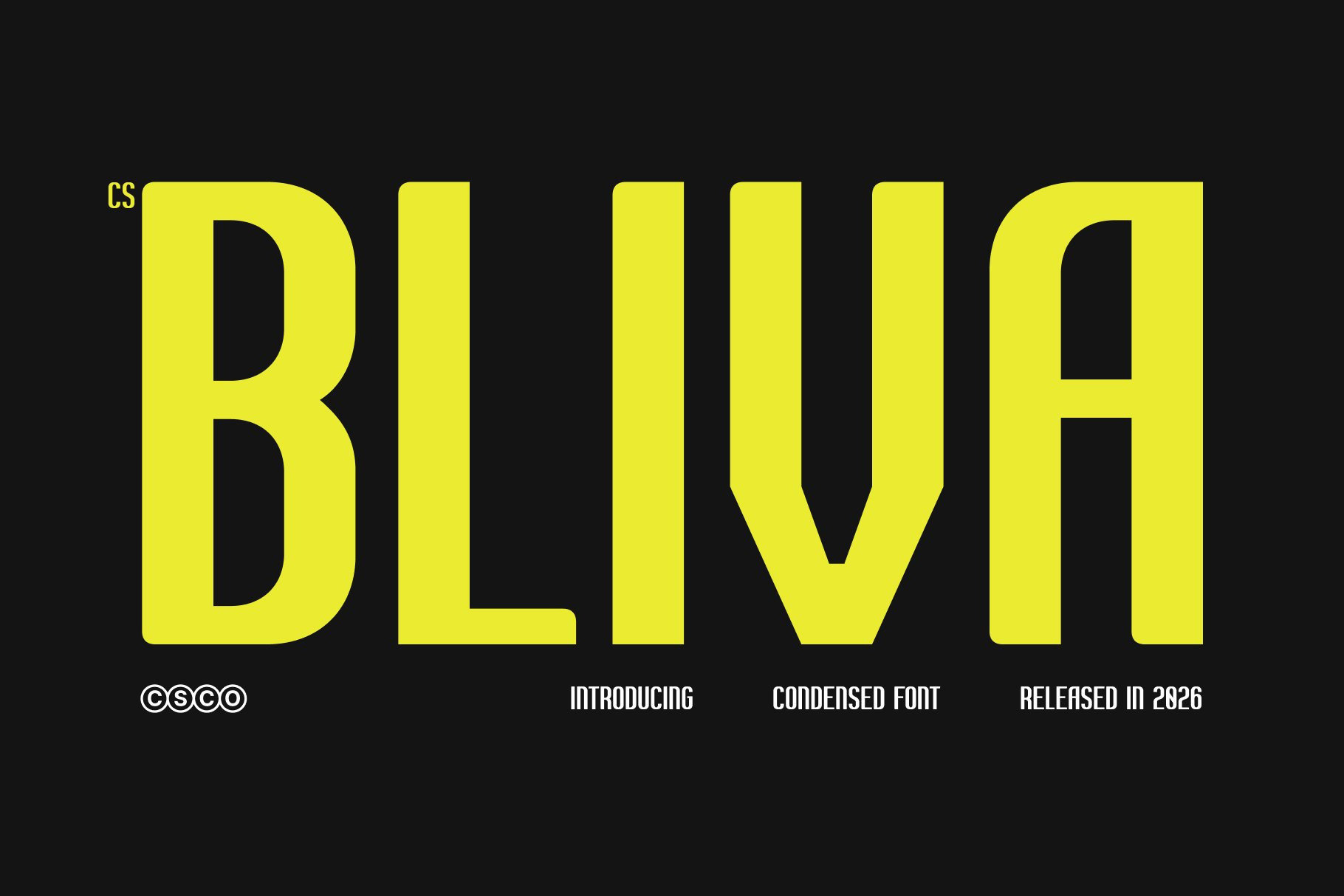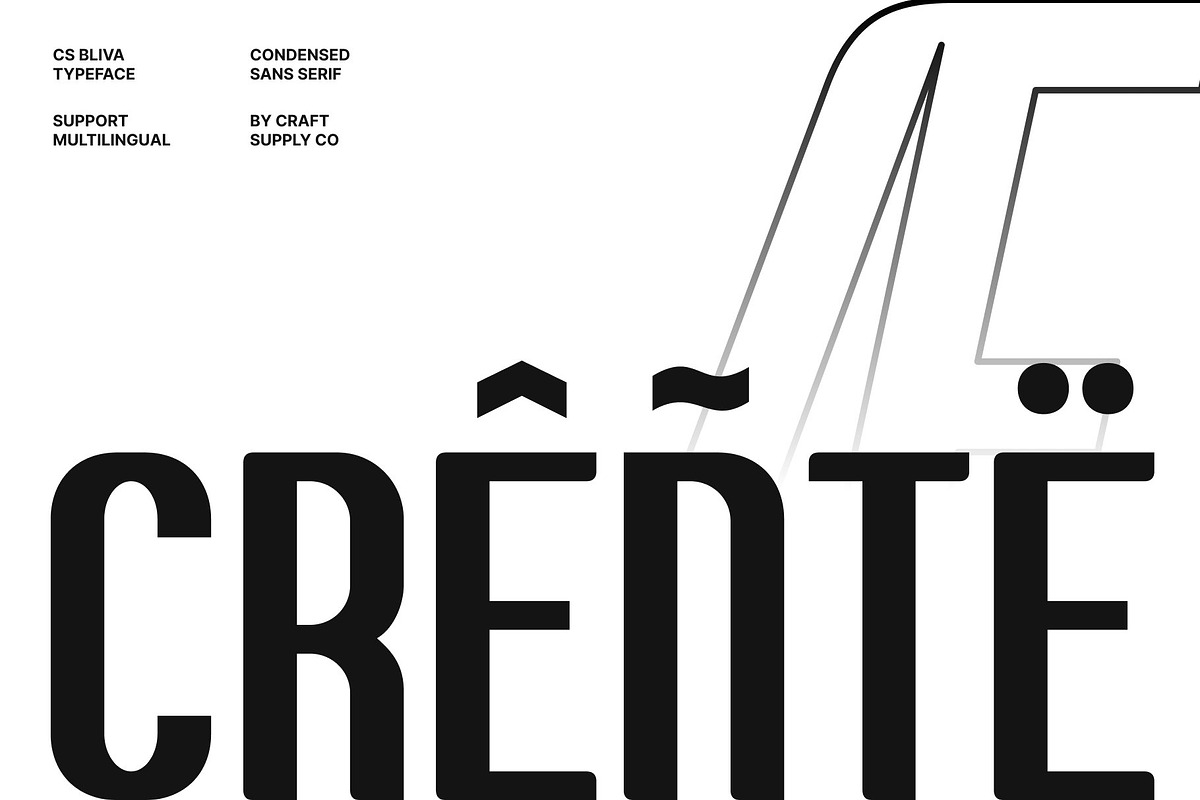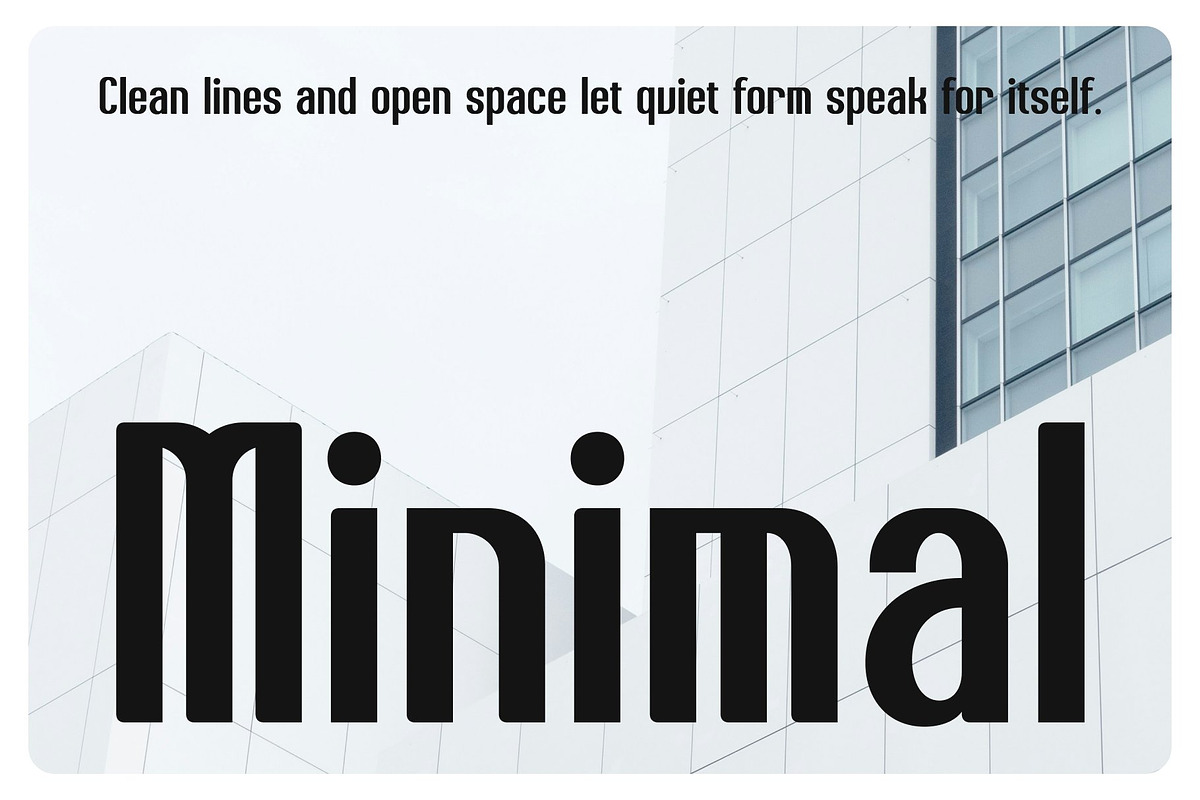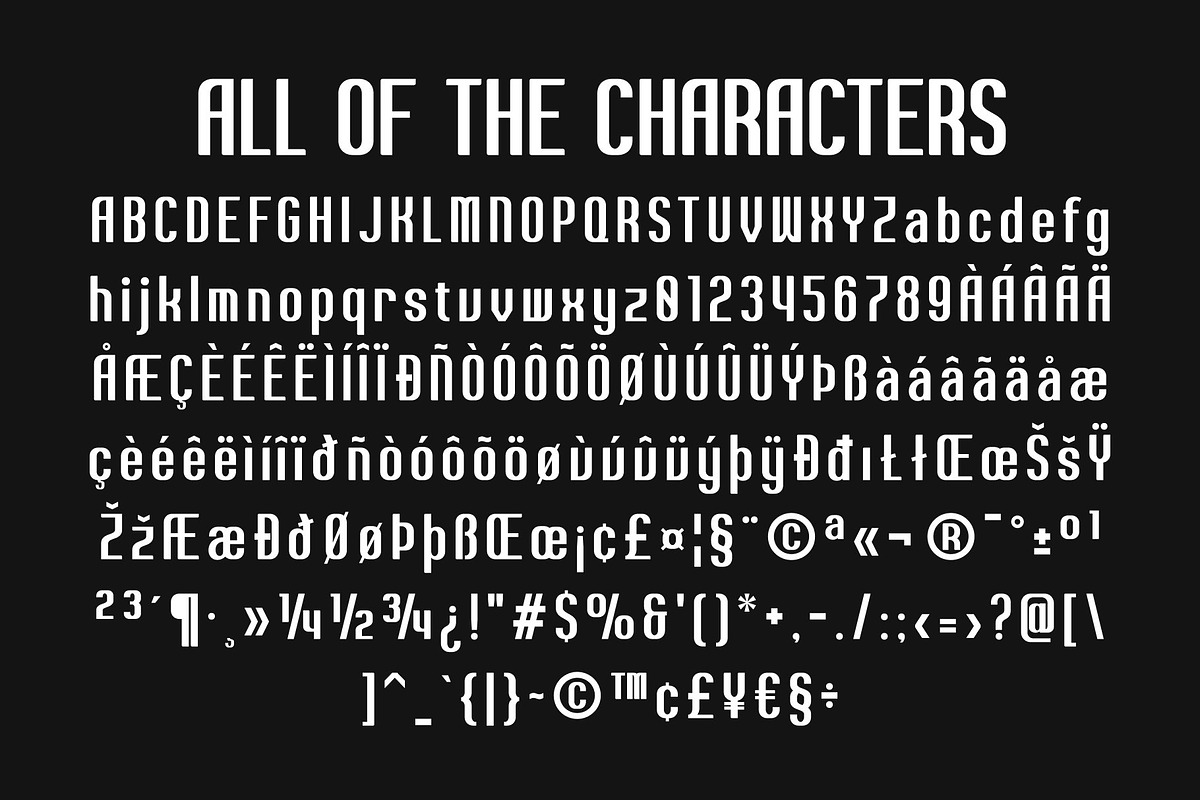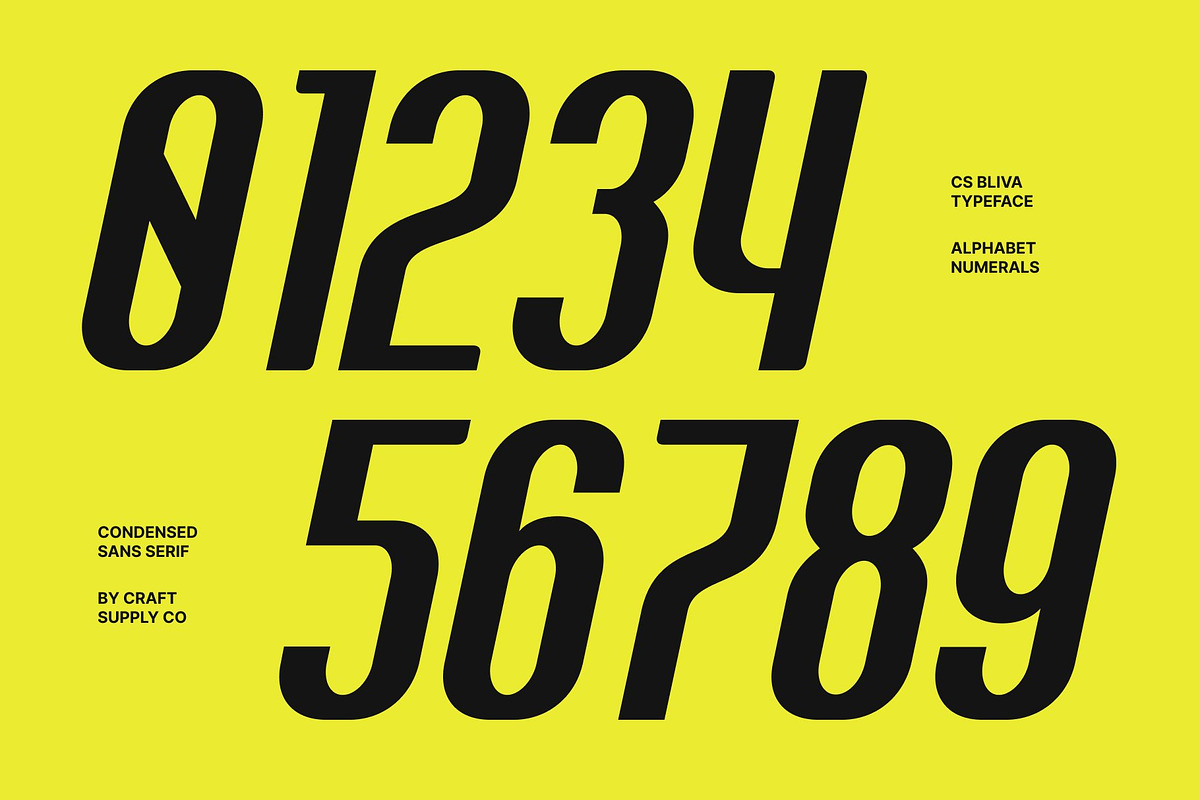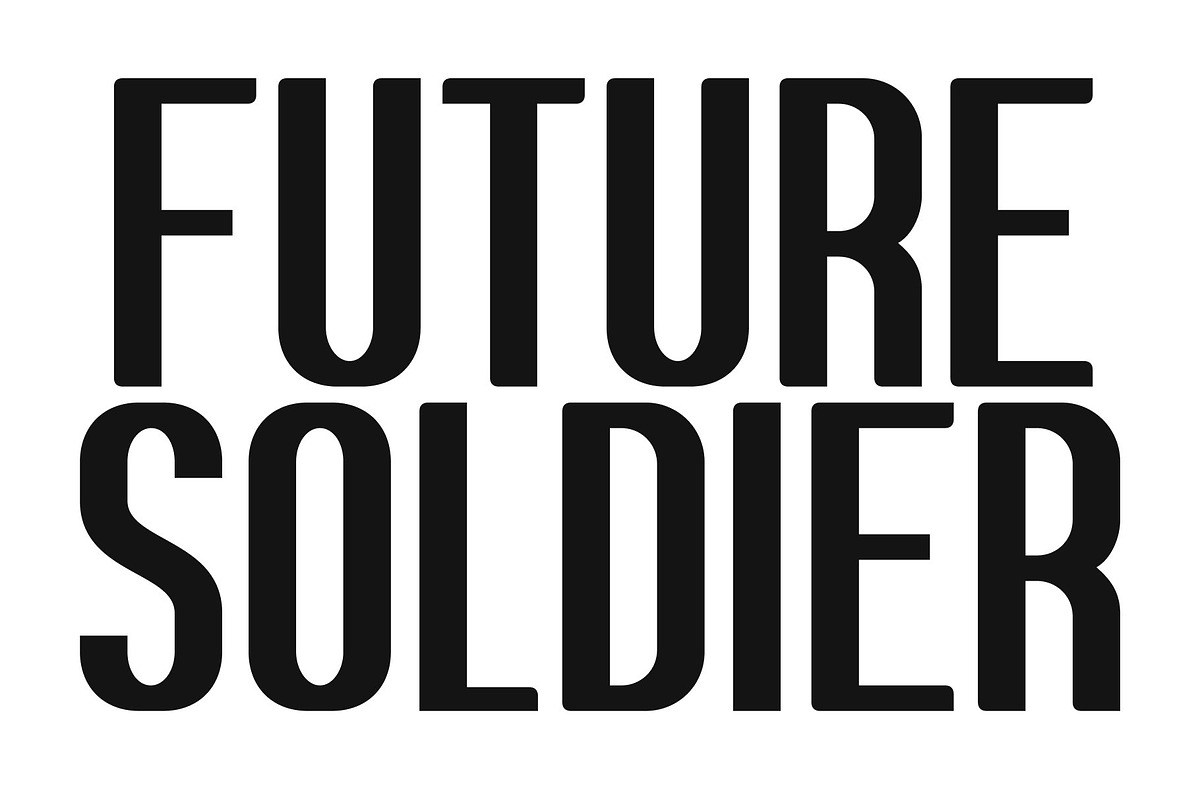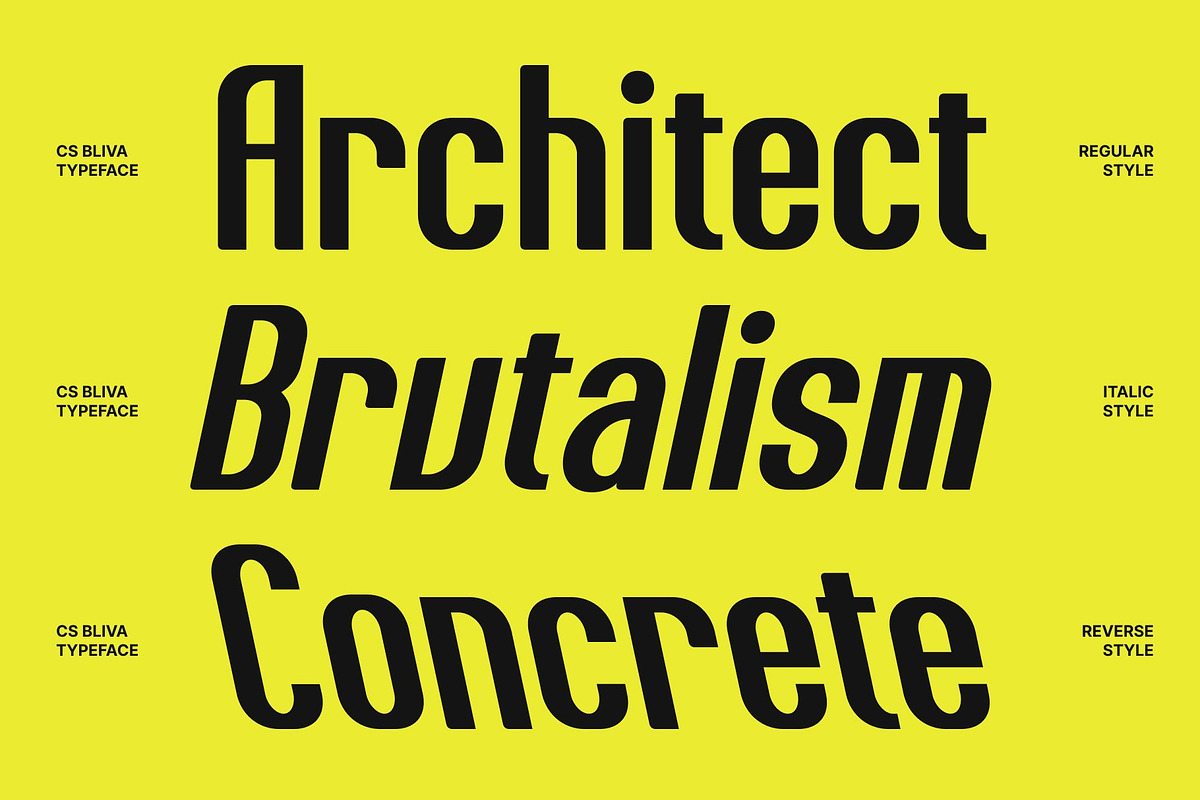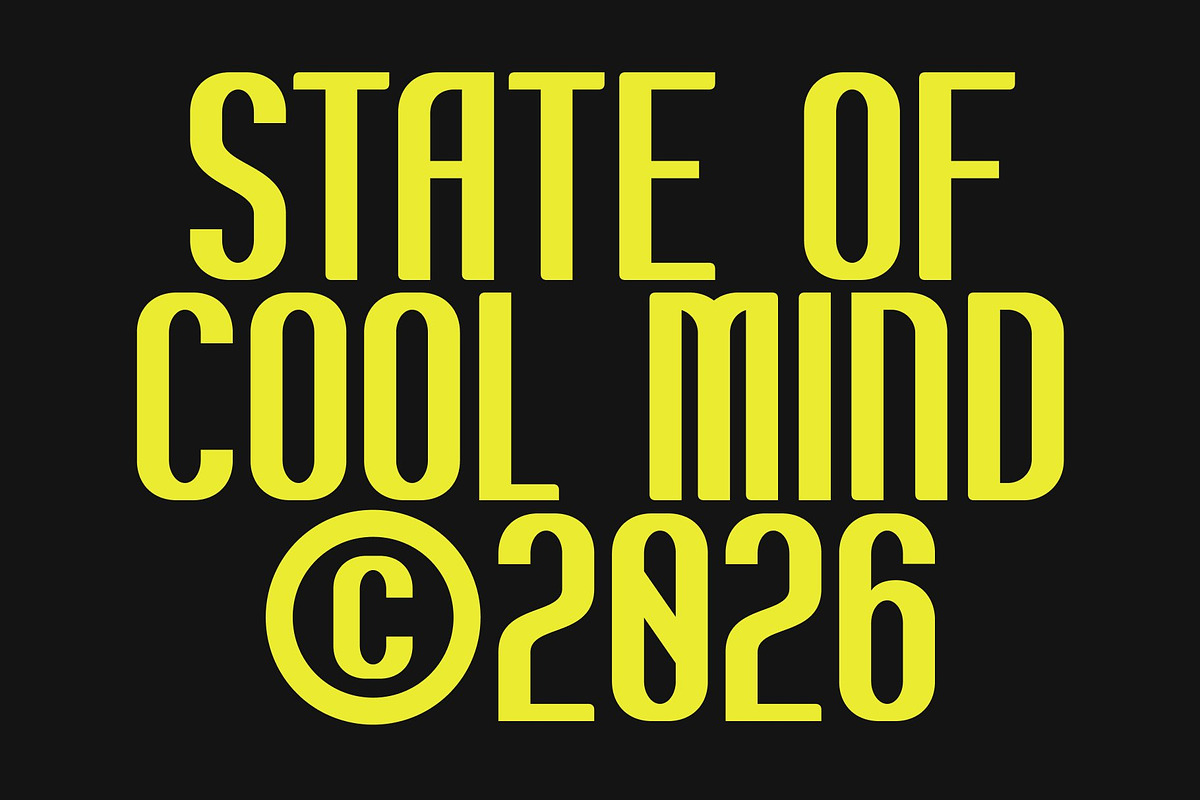
CS Bliva– Condensed Font
CS Bliva – Condensed Sans Serif Font: Where Bold Efficiency Meets Modern Clarity
Compact Design with Strong Visual Impact This is a modern condensed sans serif font built to maximize impact within limited space. Its narrow proportions and efficient structure allow designers to present more content without compromising visual strength. Each character is crafted to stand firm and clear, making it an excellent solution for tight layouts that still demand bold expression.
Clean Construction with Confident Style This font delivers a confident and polished appearance. The precise geometry enhances readability while maintaining a strong typographic voice. Its minimal yet assertive design ensures that every word feels sharp and easy to read even in dense compositions.
Perfect for Headlines and Display Needs This font performs exceptionally well in headline and display settings where space and impact must work together. Its condensed style allows for striking titles in posters, banners, and digital media without overwhelming the layout. The font’s bold presence naturally draws attention, making it ideal for designs that need to communicate quickly and effectively.
Versatile for Branding and Modern Applications From branding to editorial use, this font adapts seamlessly across various design contexts. Its balance of readability and boldness makes it suitable for logos, packaging, advertisements, and more. Whether used in print or digital formats, this font empowers designers to create compositions that are both space-efficient and visually compelling.